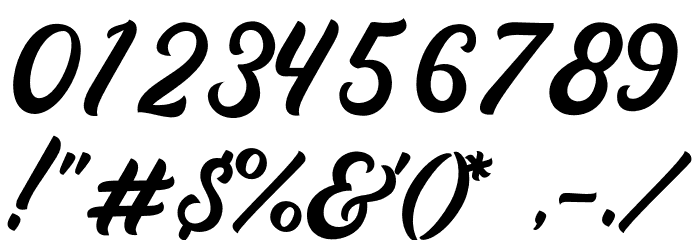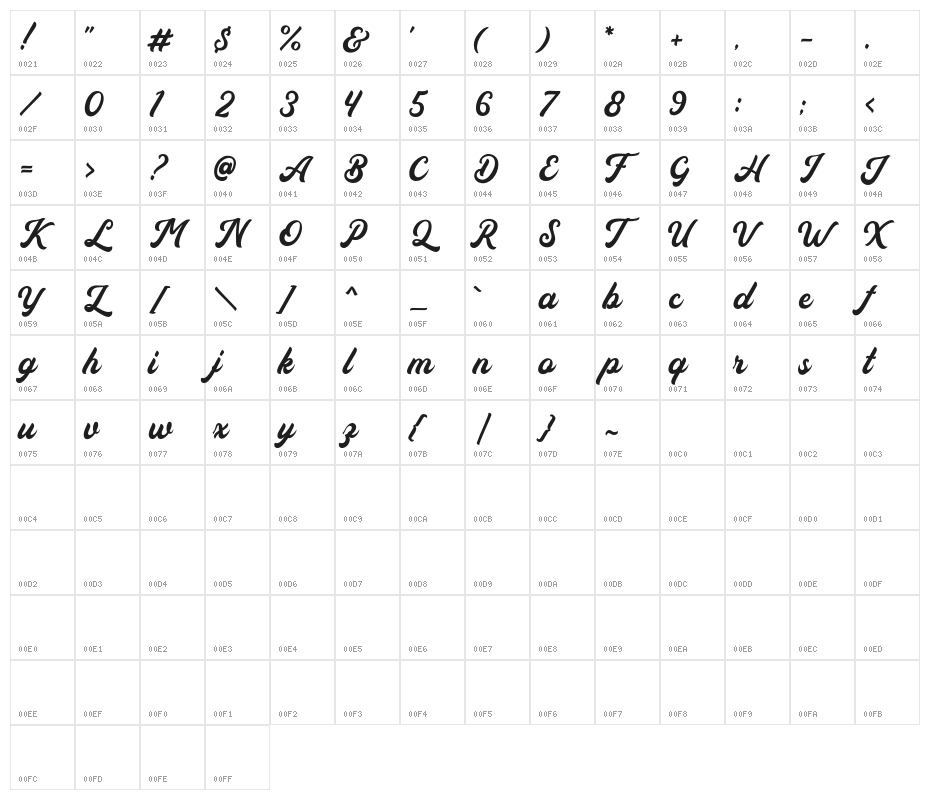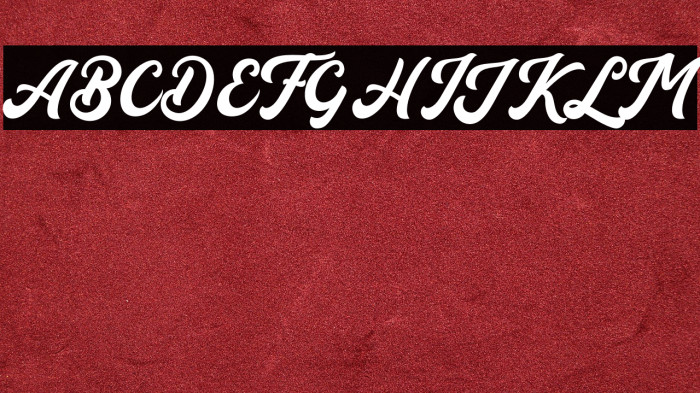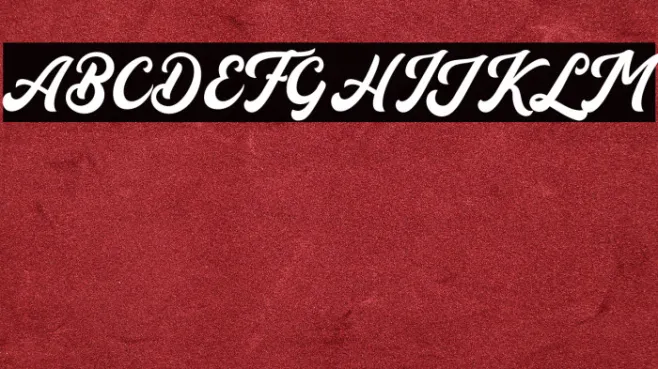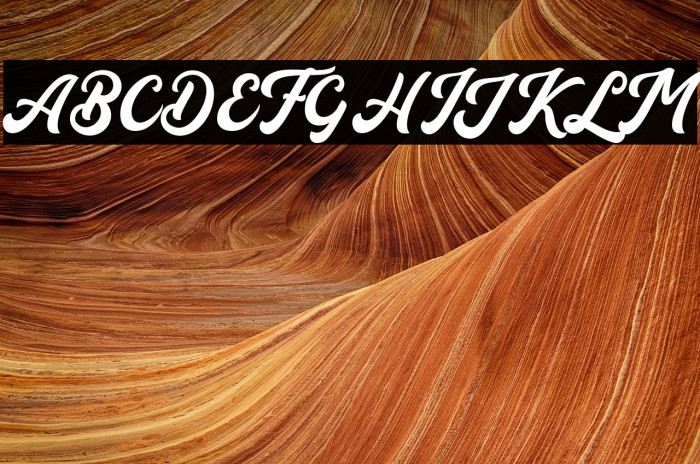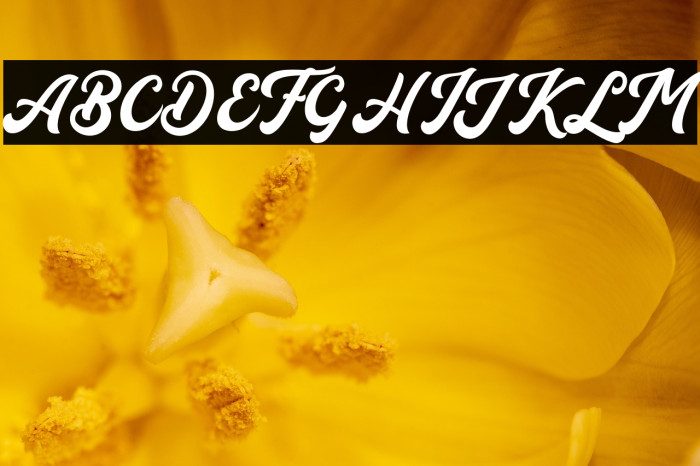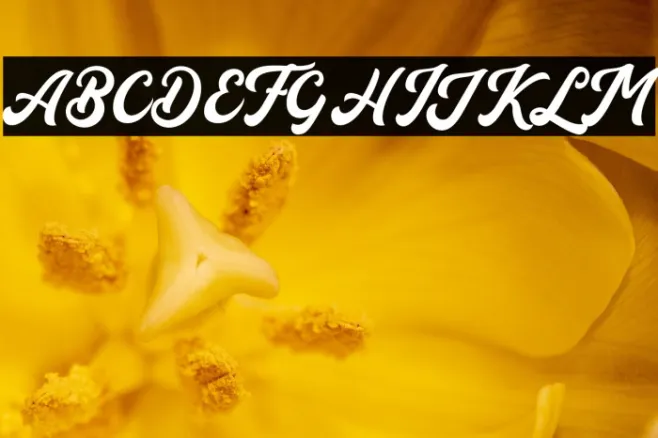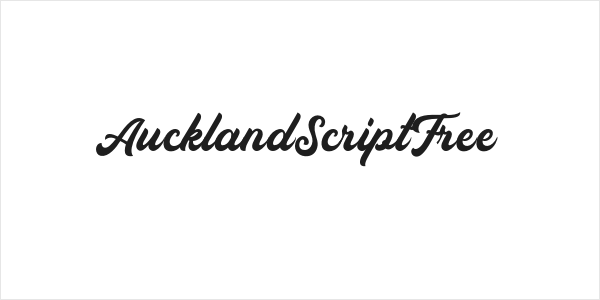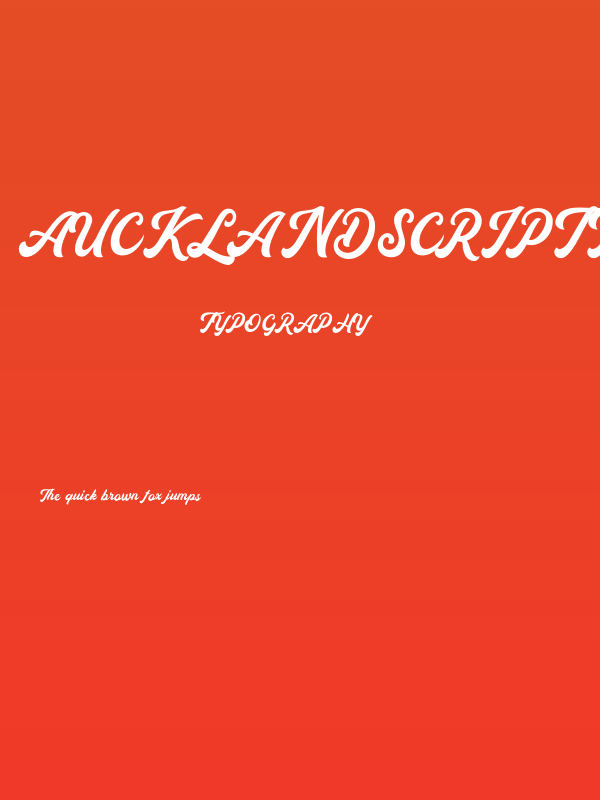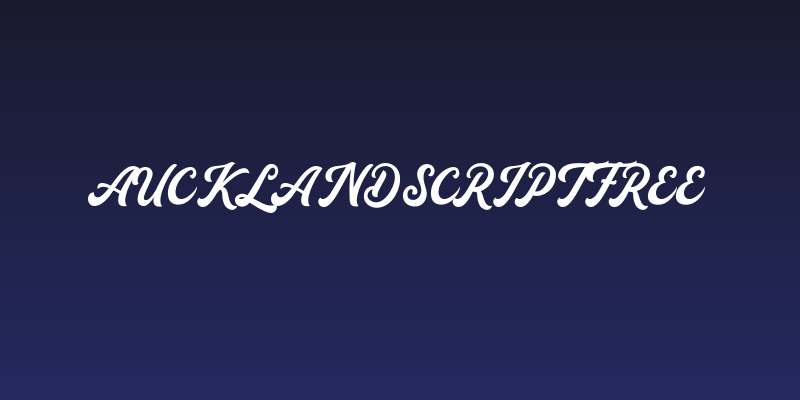
AucklandScriptFree Font
AucklandScriptFree Description
This font features a flowing, cursive style that mimics the elegance of handwritten script. Each character is connected, creating a seamless and fluid appearance. The strokes are bold and consistent, providing a strong visual impact while maintaining readability. The uppercase letters are slightly more ornate, with subtle flourishes that add a touch of sophistication. The lowercase letters are smooth and rounded, enhancing the overall graceful aesthetic. Numerals and special characters are designed to match the script's fluidity, ensuring a cohesive look across all text. This font is ideal for projects that require a personal, elegant touch.